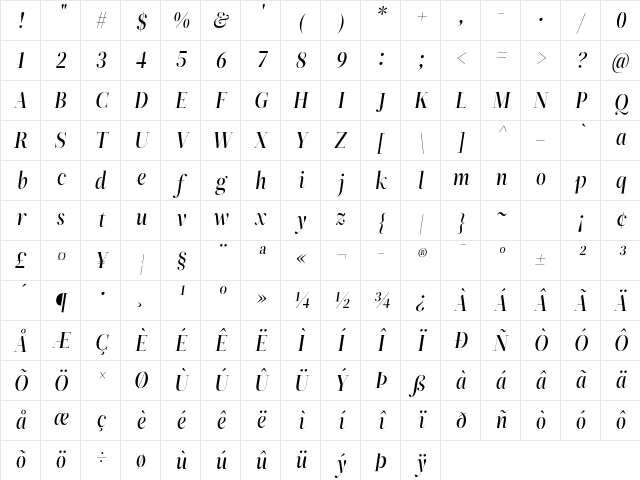
ZT Neue Ralewe Med Italic Free Font
ZT Neue Ralewe Med Italic
Design Context for ZT Neue Ralewe Med
ZT Neue Ralewe Med is a composed and adaptable typeface that performs quietly and consistently across a wide range of design contexts. The slanted form adds forward momentum and visual energy.
Pro Tip: Use ZT Neue Ralewe Med for emphasis, pull quotes, and subheadings where its slanted energy can add rhythm to the layout.